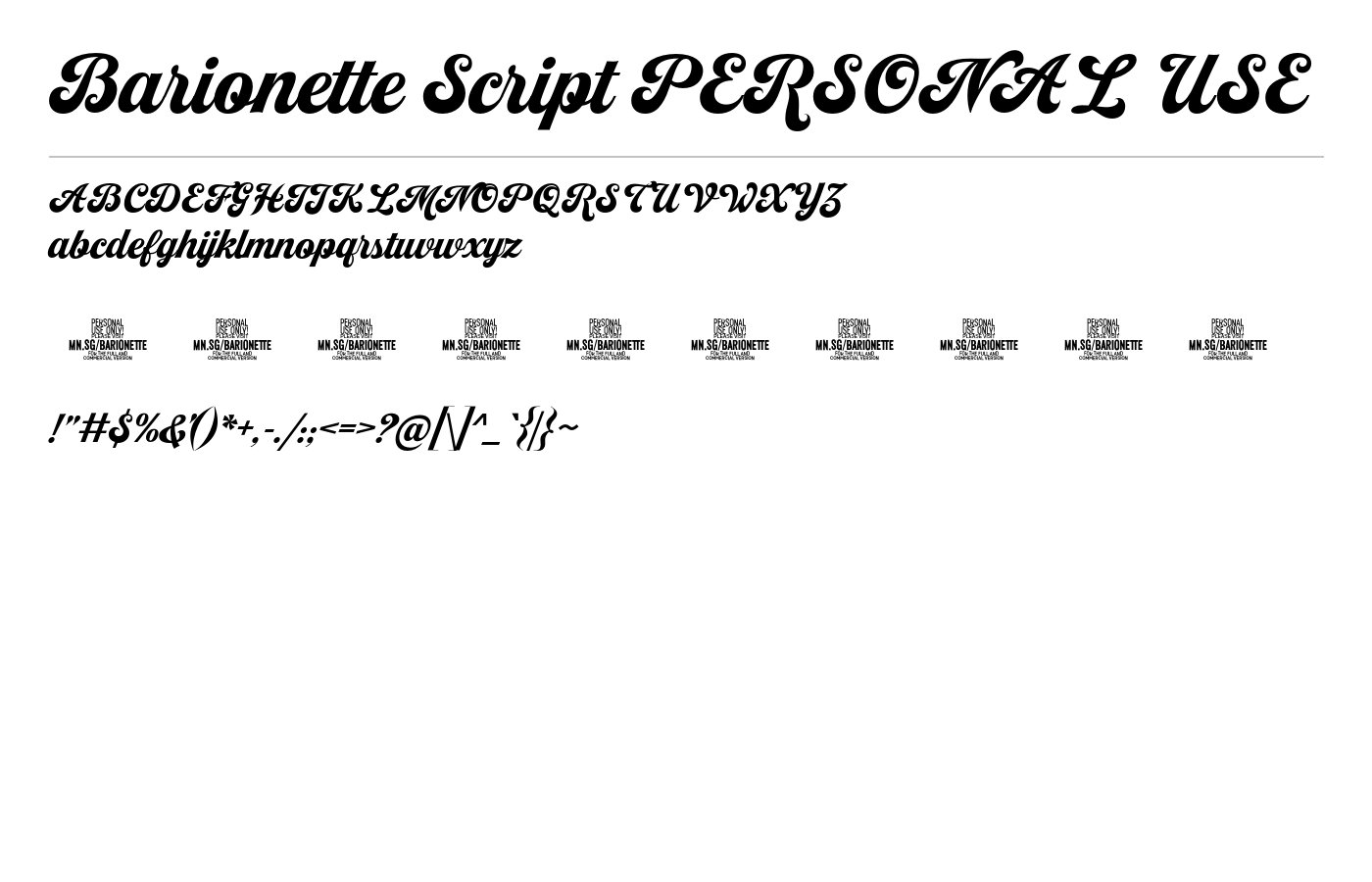
Barionette Script is a bold and elegant script font that features smooth, flowing curves and a classic calligraphic style. Its strong weight and slightly condensed letterforms give it a confident and refined look, making it ideal for stylish branding, invitations, and headlines that demand a touch of sophistication. This font works well where a vintage yet polished feel is needed to convey creativity and charm.
Barionette Script PERSONAL USE Font
About Barionette Script PERSONAL USE Font